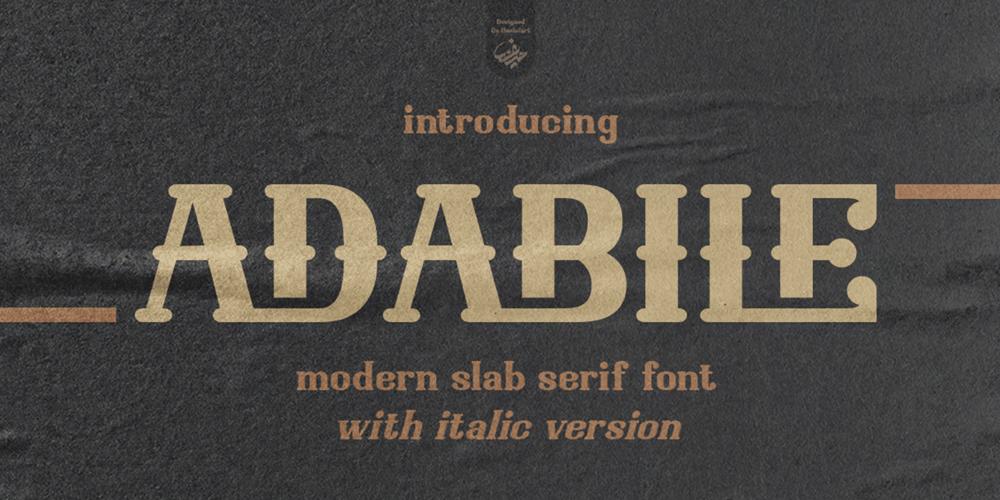
Adabile Font Family was designed by Hanif Maulazi and published by Haniefart. Adabile contains 2 styles and family package options. Immerse yourself in the world of typography with Adabile, an expertly handcrafted slab serif font. With Adabile, athletic vigor melds with refined elegance to craft a modern aesthetic that captivates and compels. This versatile typeface is a dual act, presented in both regular and italic versions to perfectly suit your designer’s eye. Going beyond conventional offerings, Adabile boasts both uppercase and lowercase letters, complemented by punctuation and symbols, for a fully customizable typographic experience. Ideal for a host of applications, it enhances the appearance of business brands, infusing dynamism into film titles, amplifying the allure of book covers and magazines, and imbues business cards and logos with a contemporary edge. Whether for creating compelling comics or many other design contexts, Adabile adds a unique touch that is distinctly its own.